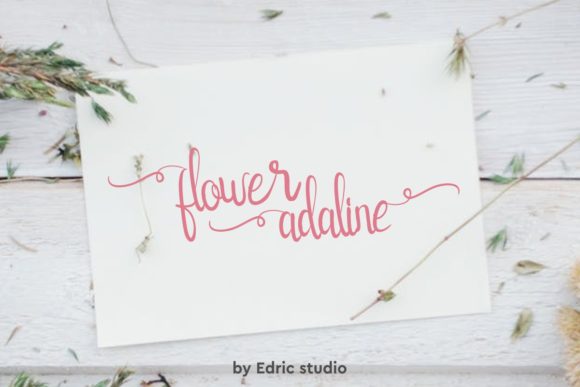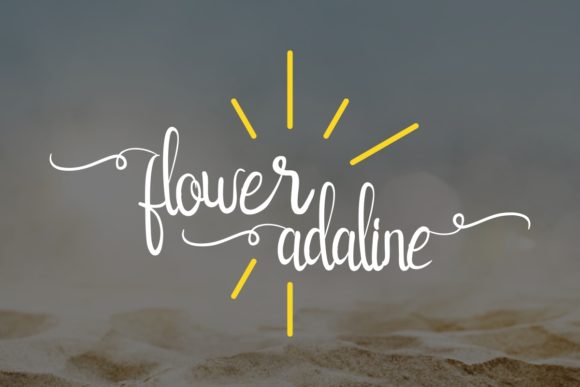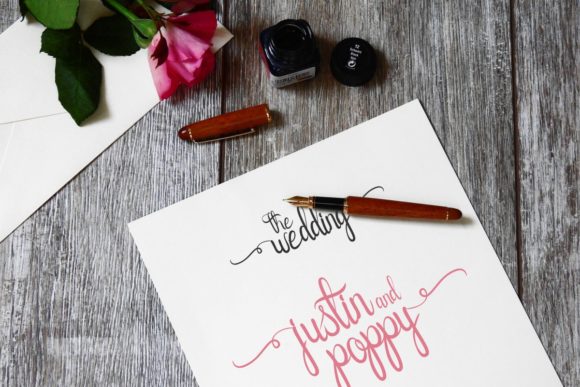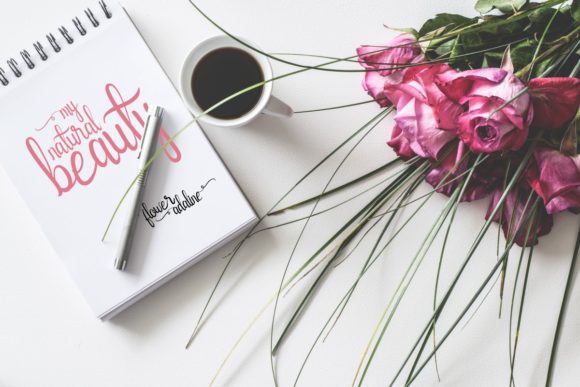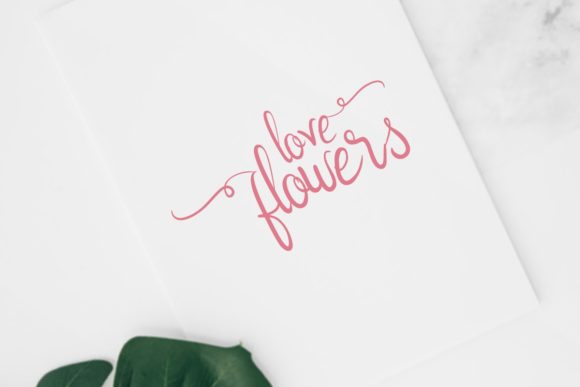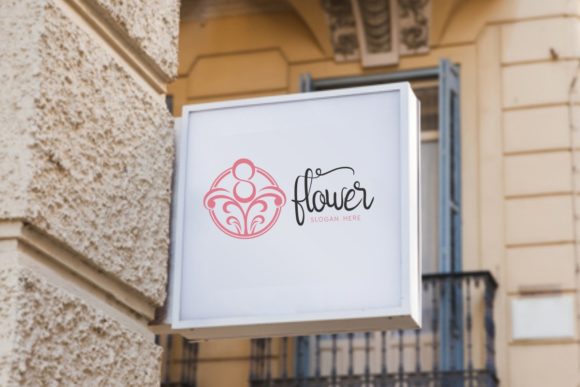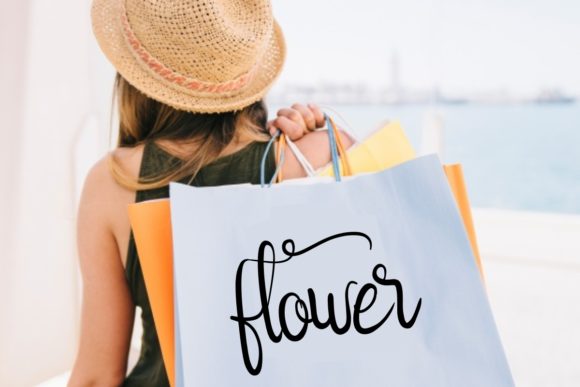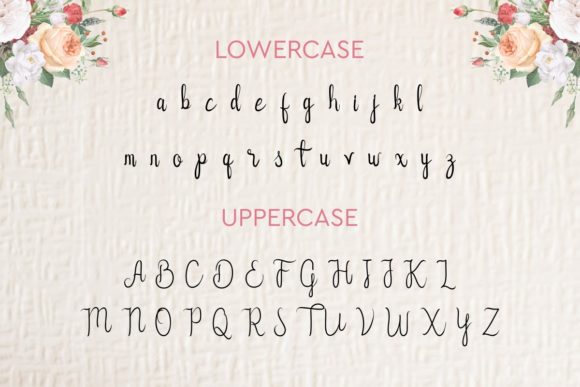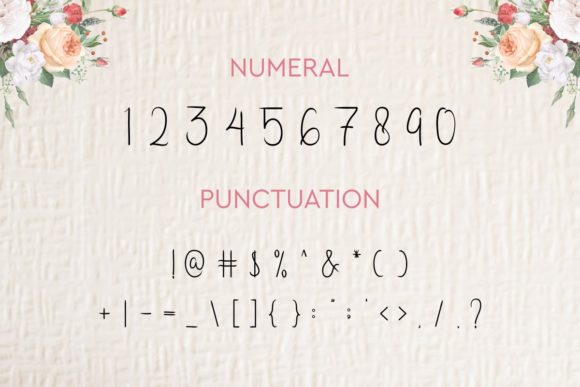
Flower Adaline Font
About Flower Adaline Font
Flower Adaline is a unique handwritten font with a light and delicate charm. Get inspired by its youthful, yet elegant feel!